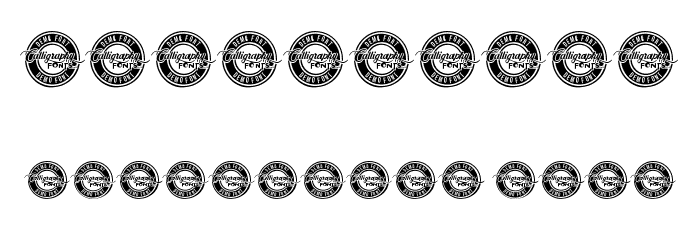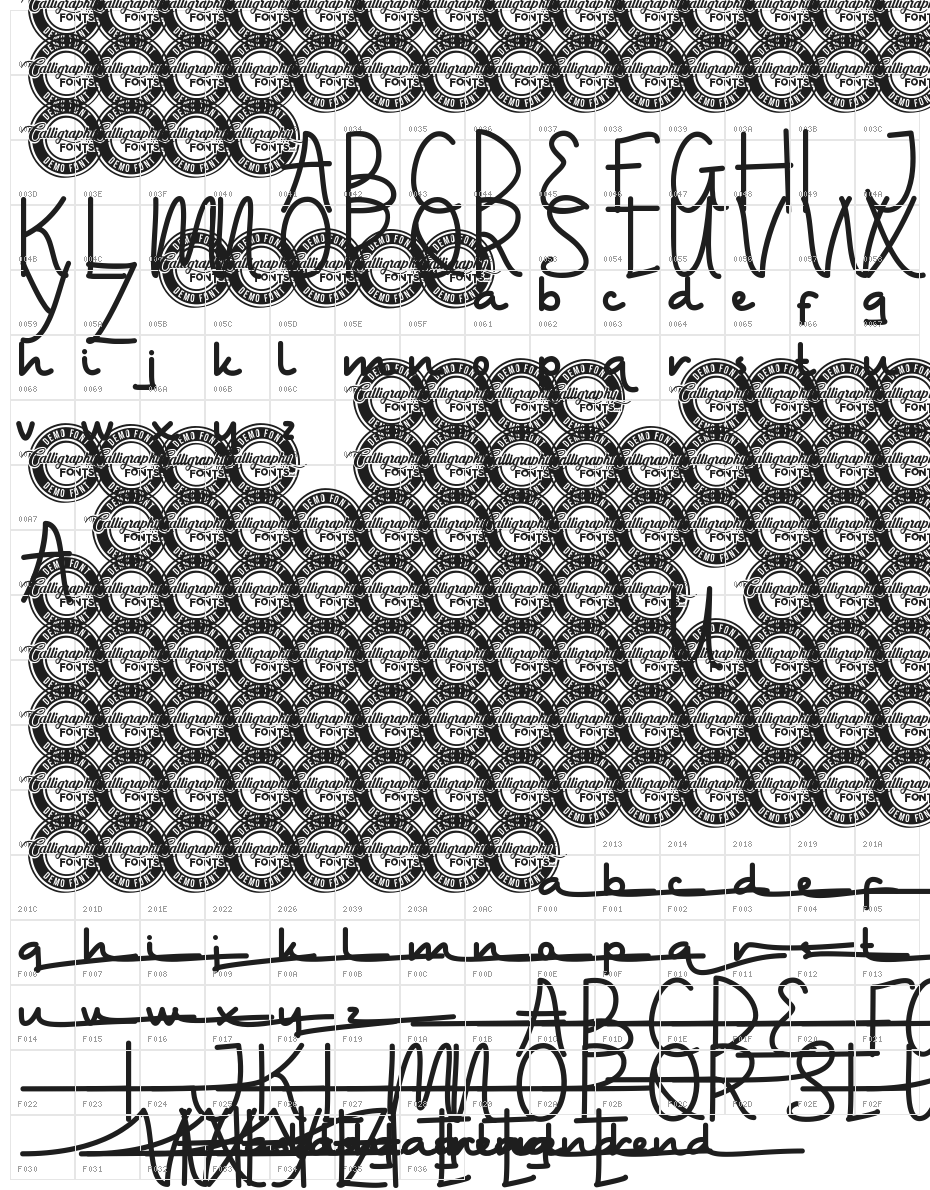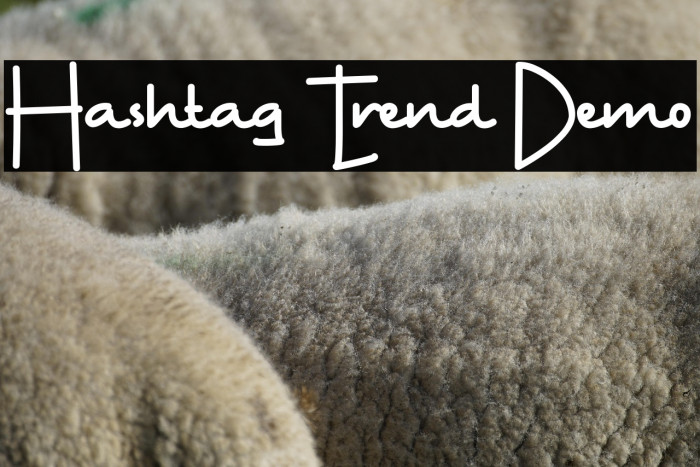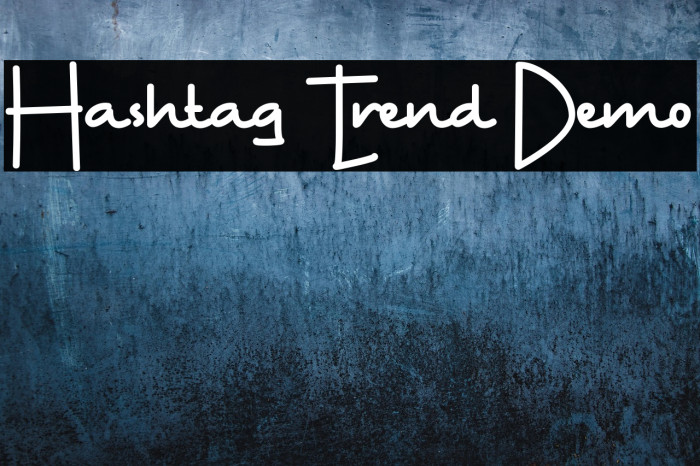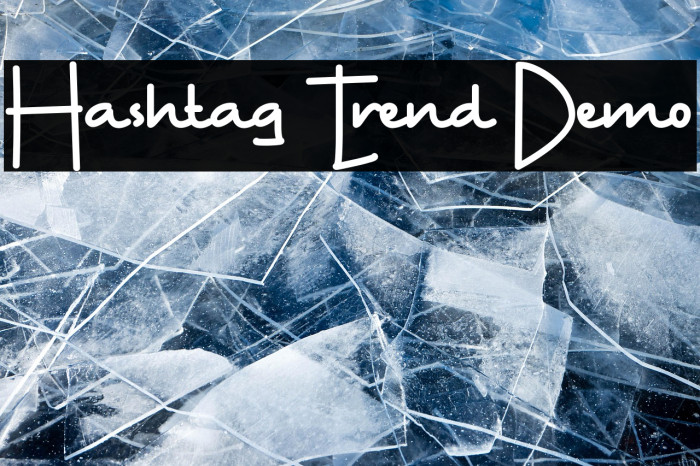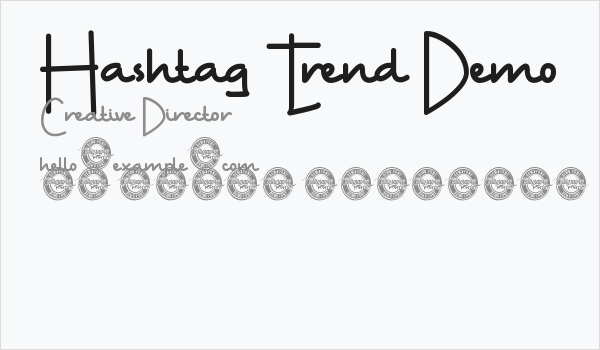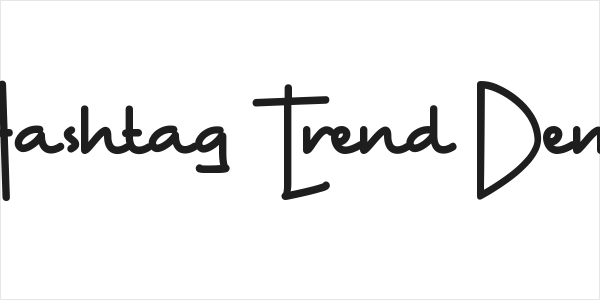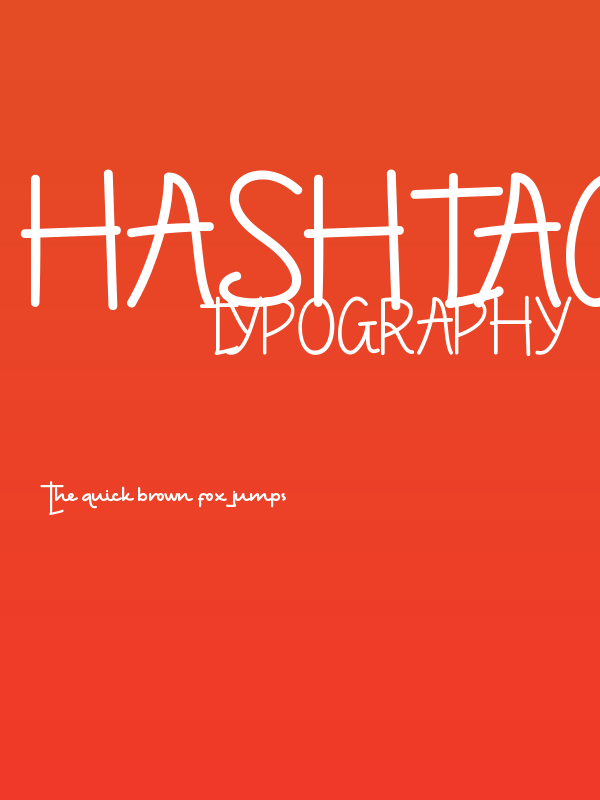
Hashtag Trend Demo Font
Hashtag Trend Demo Description
This font features a playful and casual handwritten style, characterized by its smooth, flowing curves and slightly uneven baseline. The uppercase letters are tall and narrow, with a whimsical flair that adds personality to each character. The lowercase letters maintain a consistent stroke width, offering a harmonious balance between the characters. The font's informal and friendly appearance makes it ideal for projects that require a personal touch. Its legibility is enhanced by the clear distinction between each letter, making it suitable for both digital and print media. The special characters are crafted with the same playful style, ensuring consistency throughout the font.
| Use Case | Logos, Headlines, Social Media |
| Proposed Projects | Ideal for greeting cards, social media graphics, personal branding, and informal invitations. |